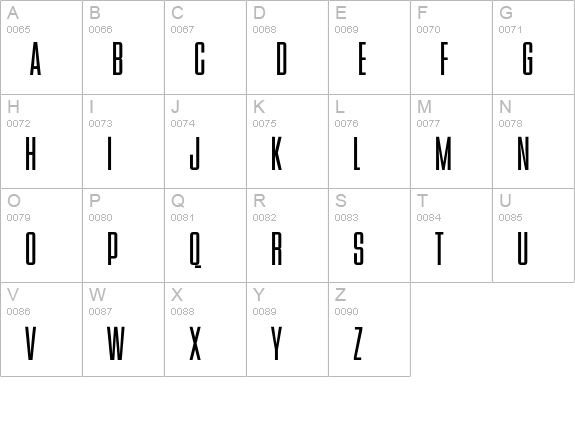
ReportLight Font Details
ReportLight is a sleek and modern font that embodies elegance and sophistication. With its clean lines and minimalist design, this font is perfect for adding a touch of professionalism to any project. The light weight of ReportLight provides a delicate and refined look, making it ideal for use in headers, titles, and branding materials. This font offers a wide range of versatility, allowing it to work well in both print and digital media. Whether you're designing a magazine layout, creating a logo, or crafting a website, ReportLight will elevate your design to the next level. But that's not all - the best part about ReportLight is that it is absolutely free! That's right, you can download this font at no cost from FontsMarket.com. This means that you can enhance your projects with a high-quality and professional font without breaking the bank. So why wait? Take advantage of the opportunity to elevate your design work with ReportLight. Download this font for free at FontsMarket.com and start creating stunning visuals that will leave a lasting impression.